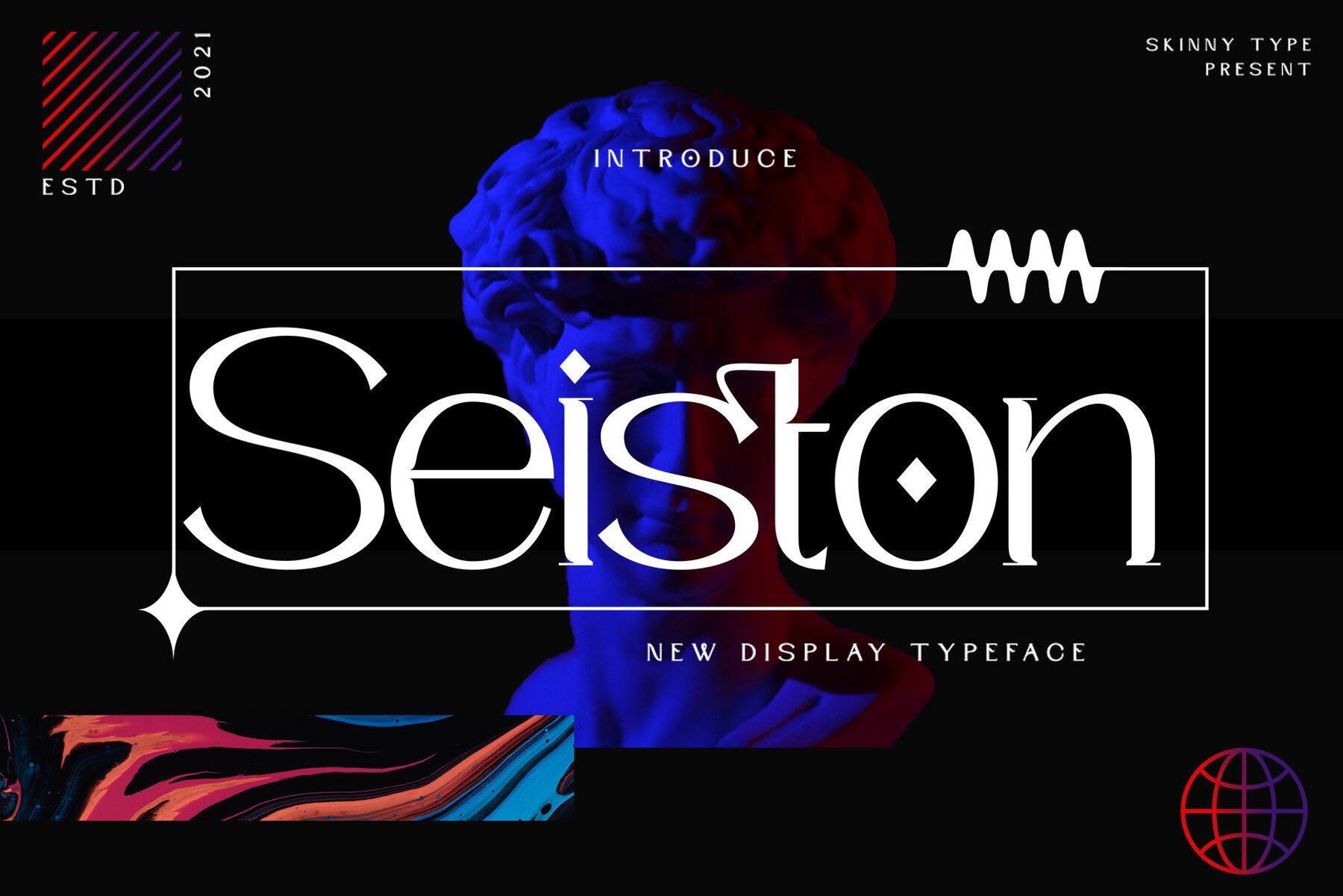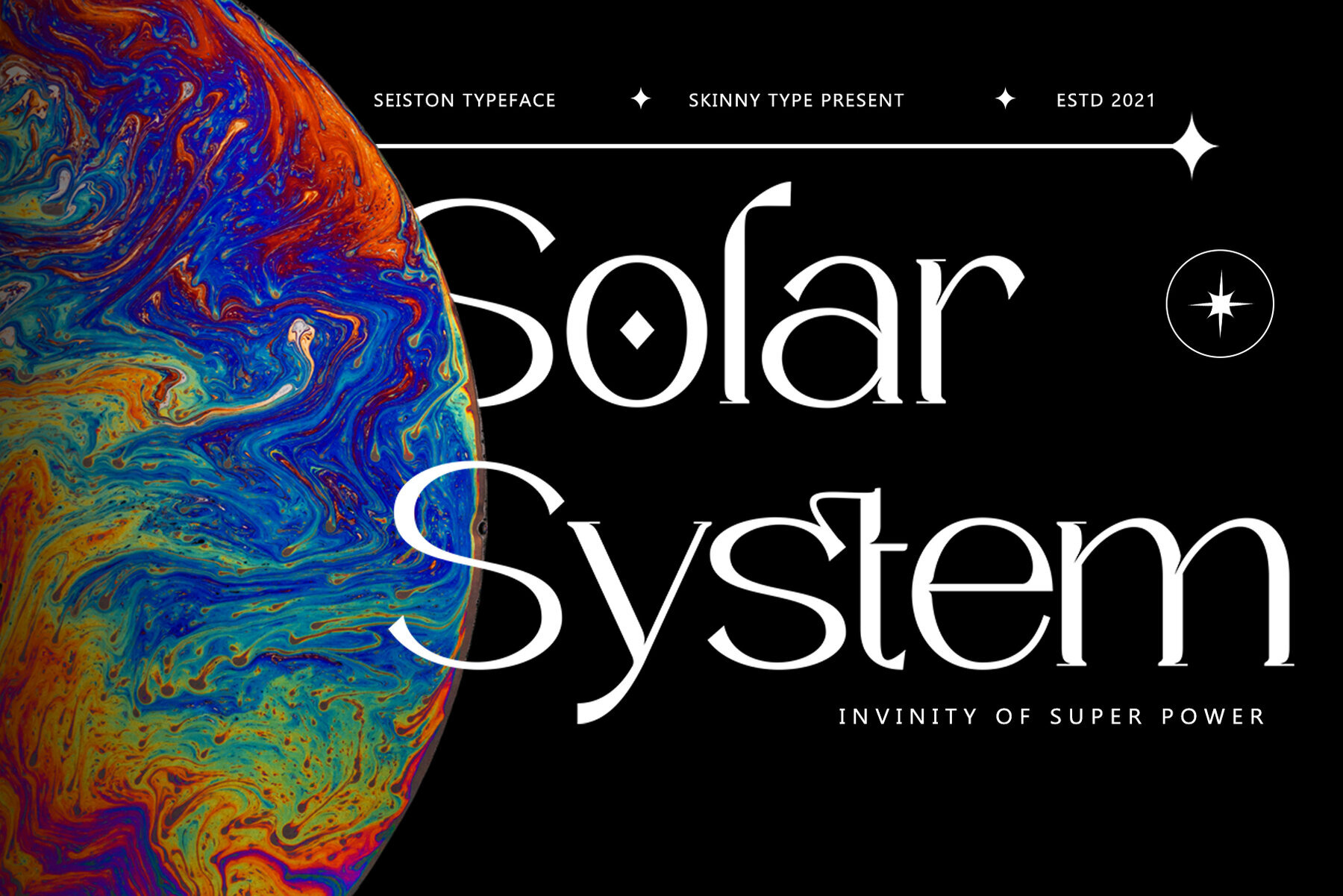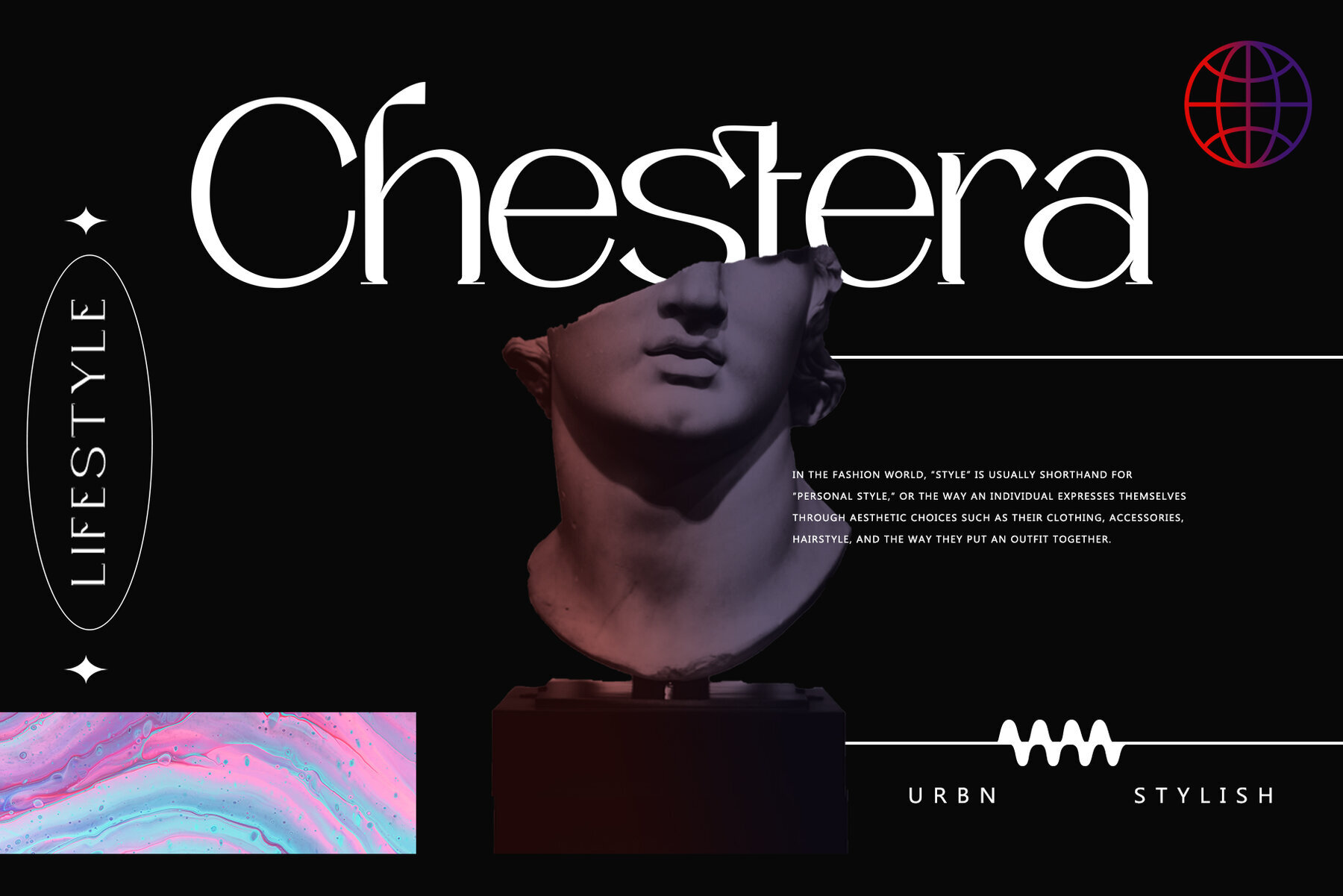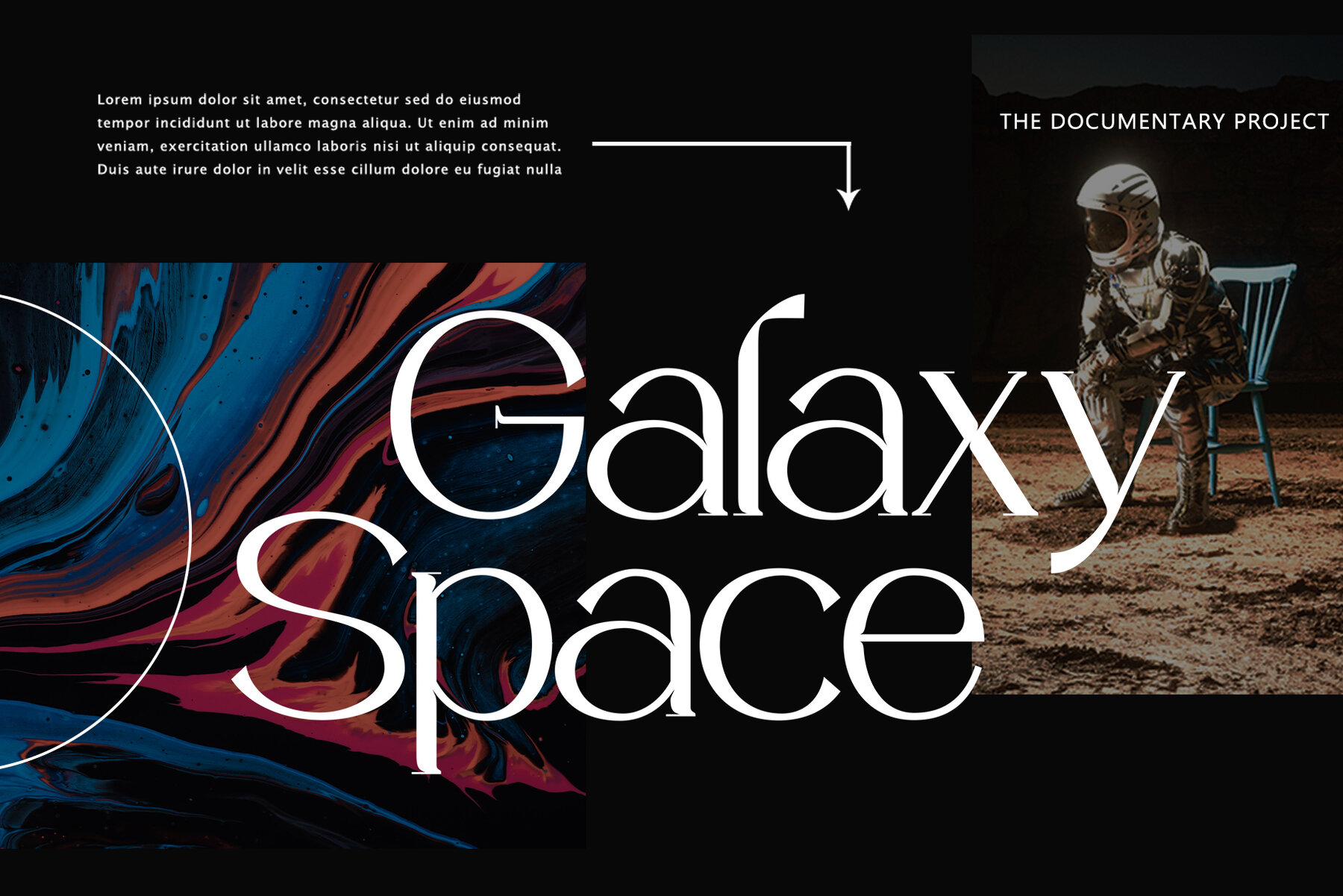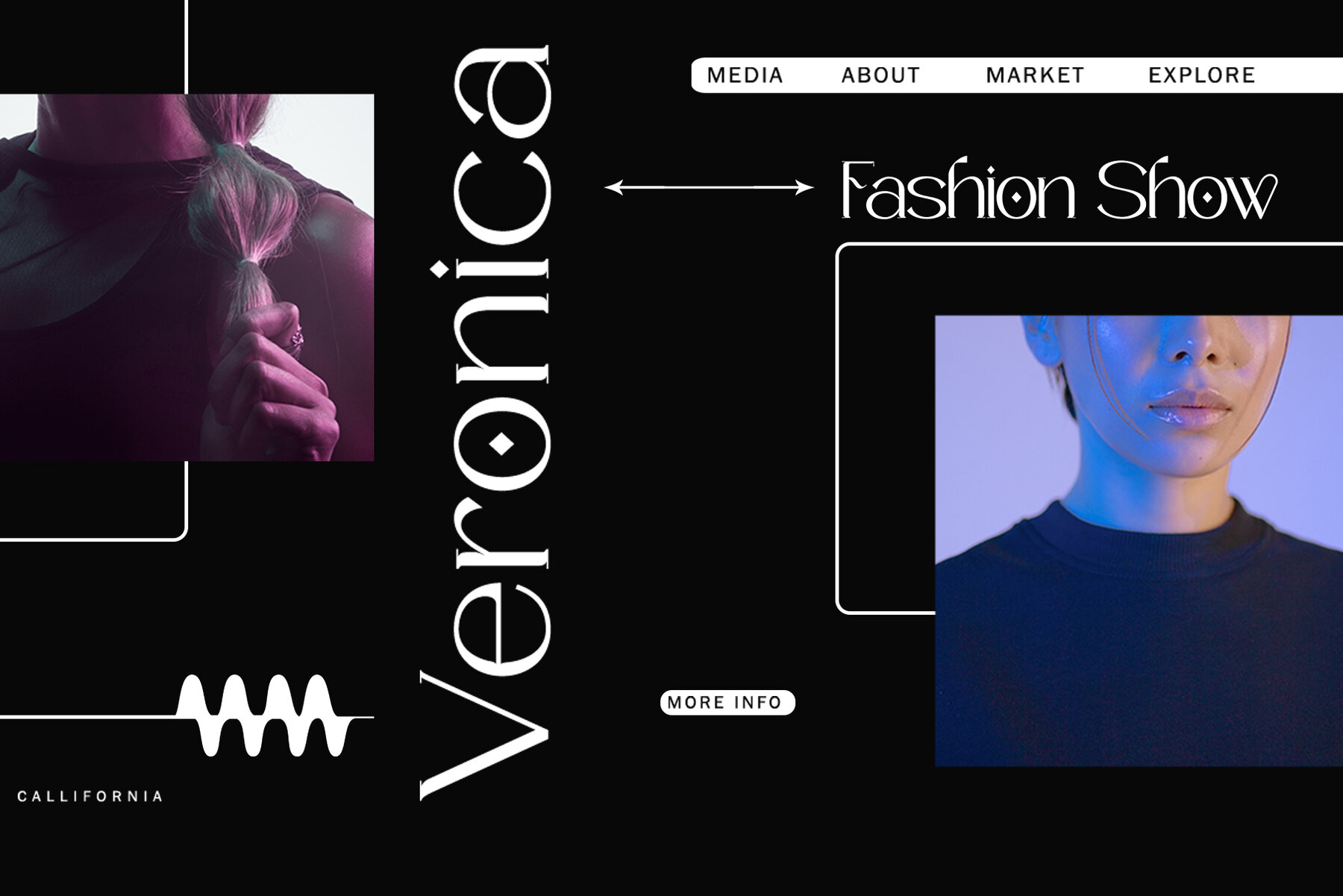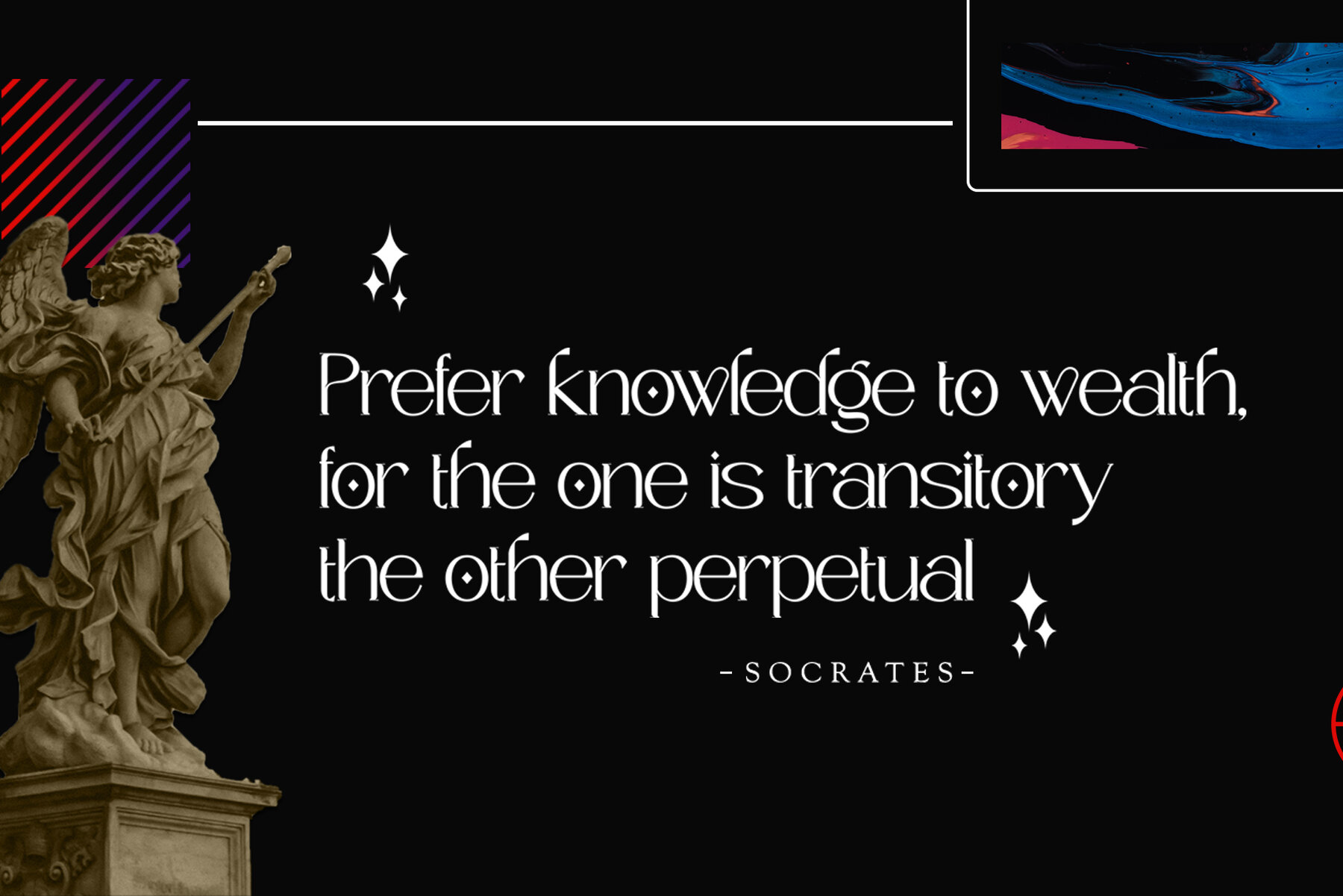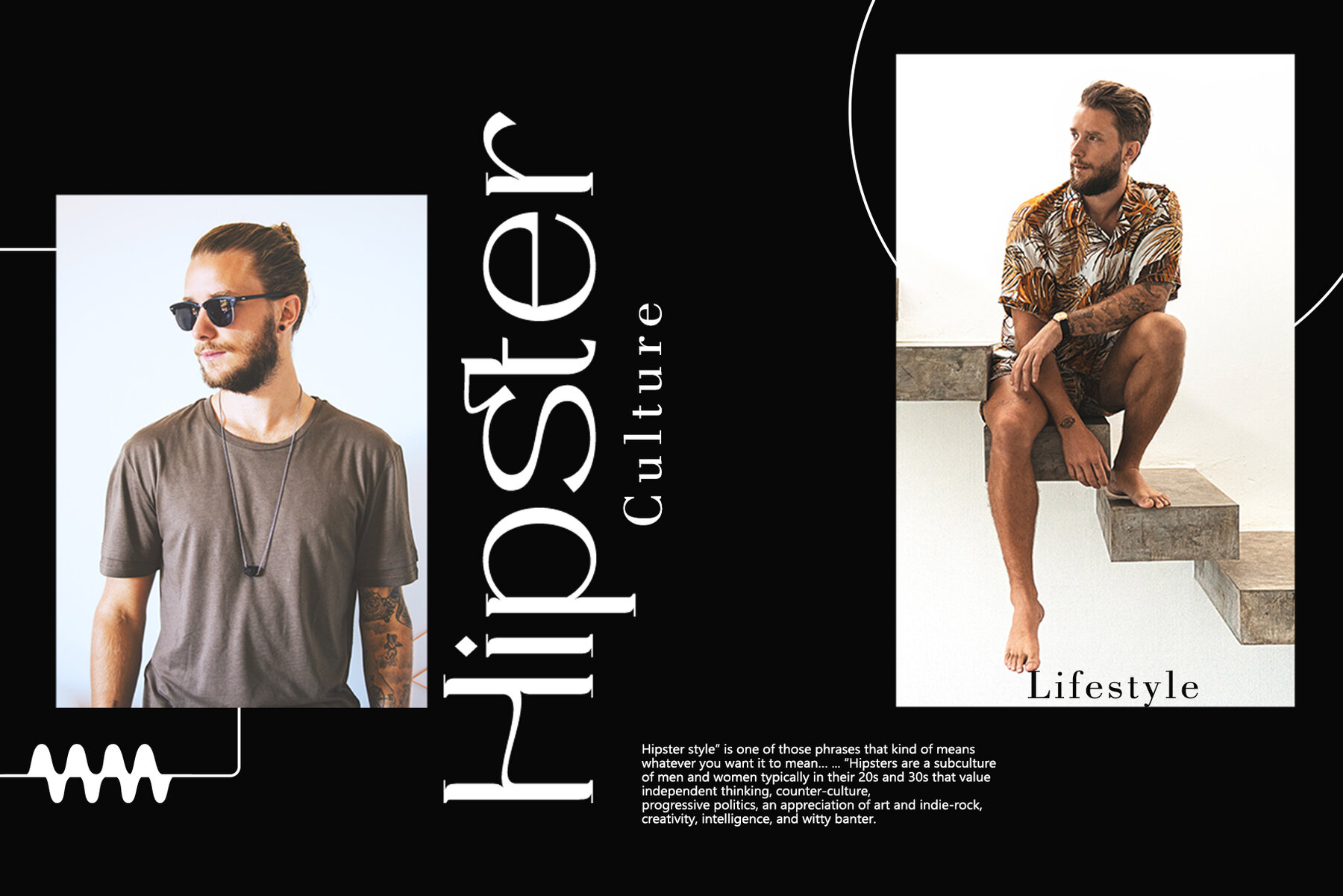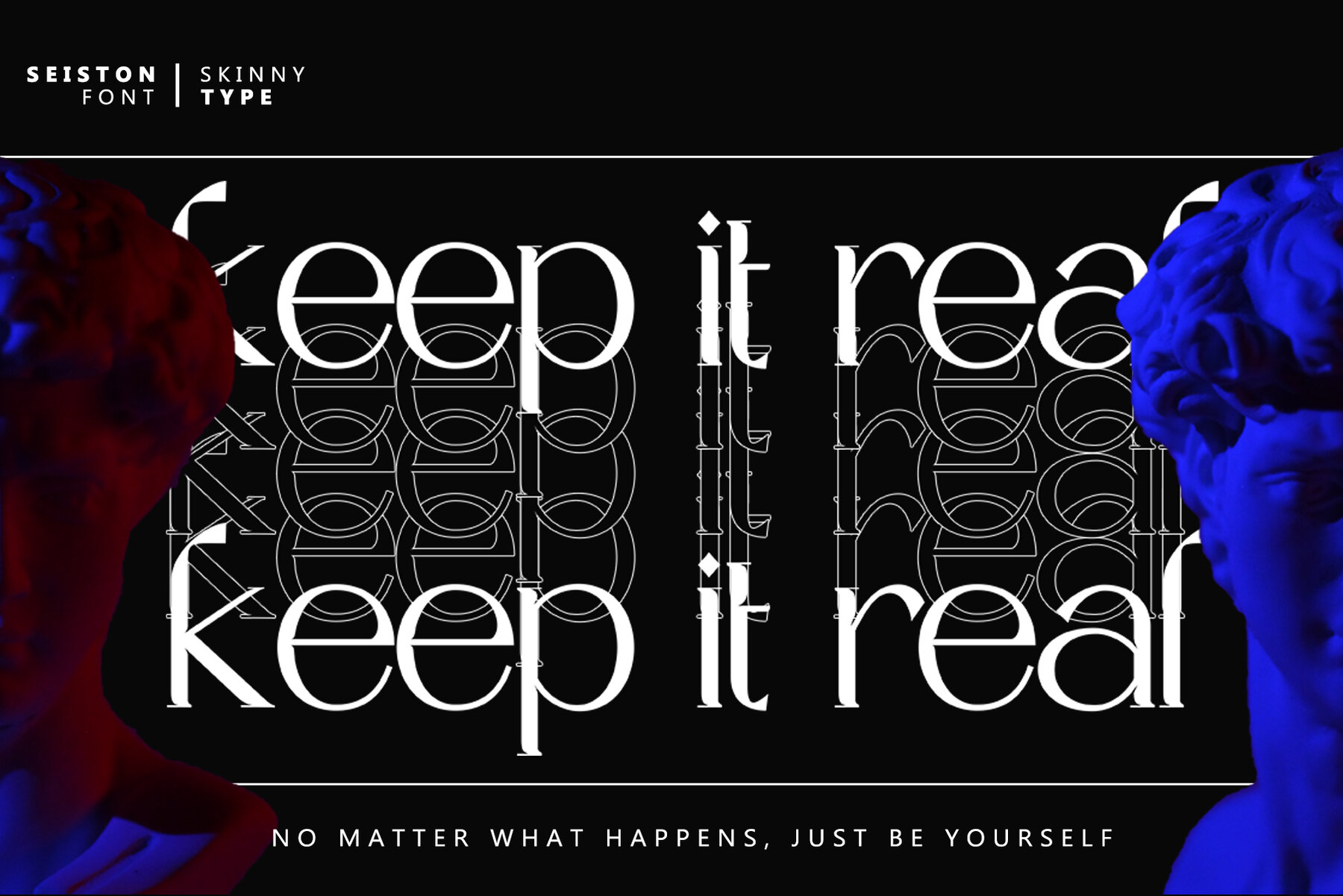
Seiston Font
Seiston Regular
This elegant serif font features thin and tall letterforms, making it an ideal choice for sophisticated and stylish design projects. With its high contrast and refined appearance, this font is perfect for fashion editorials, luxury branding, and formal invitations. Its classic yet modern look ensures readability while exuding a sense of high-end sophistication, making it suitable for a variety of applications from headlines to display purposes.